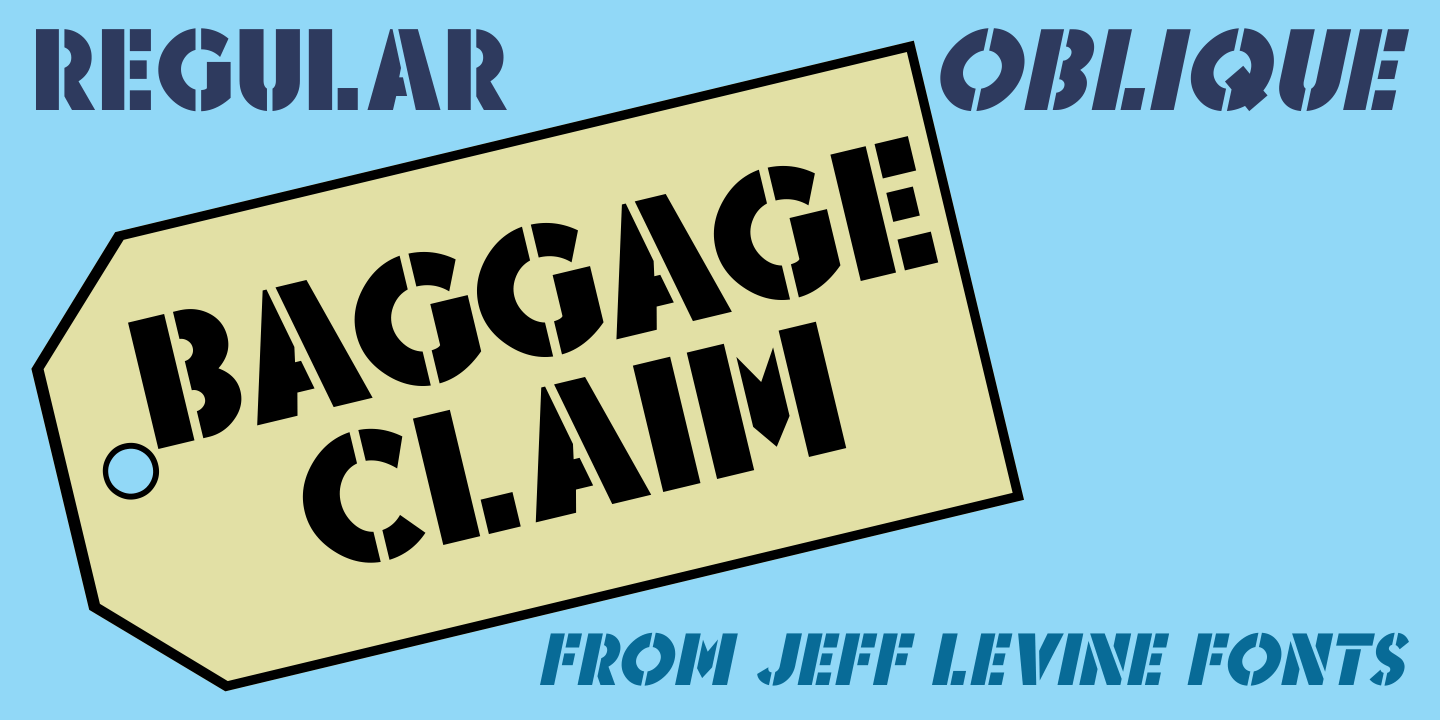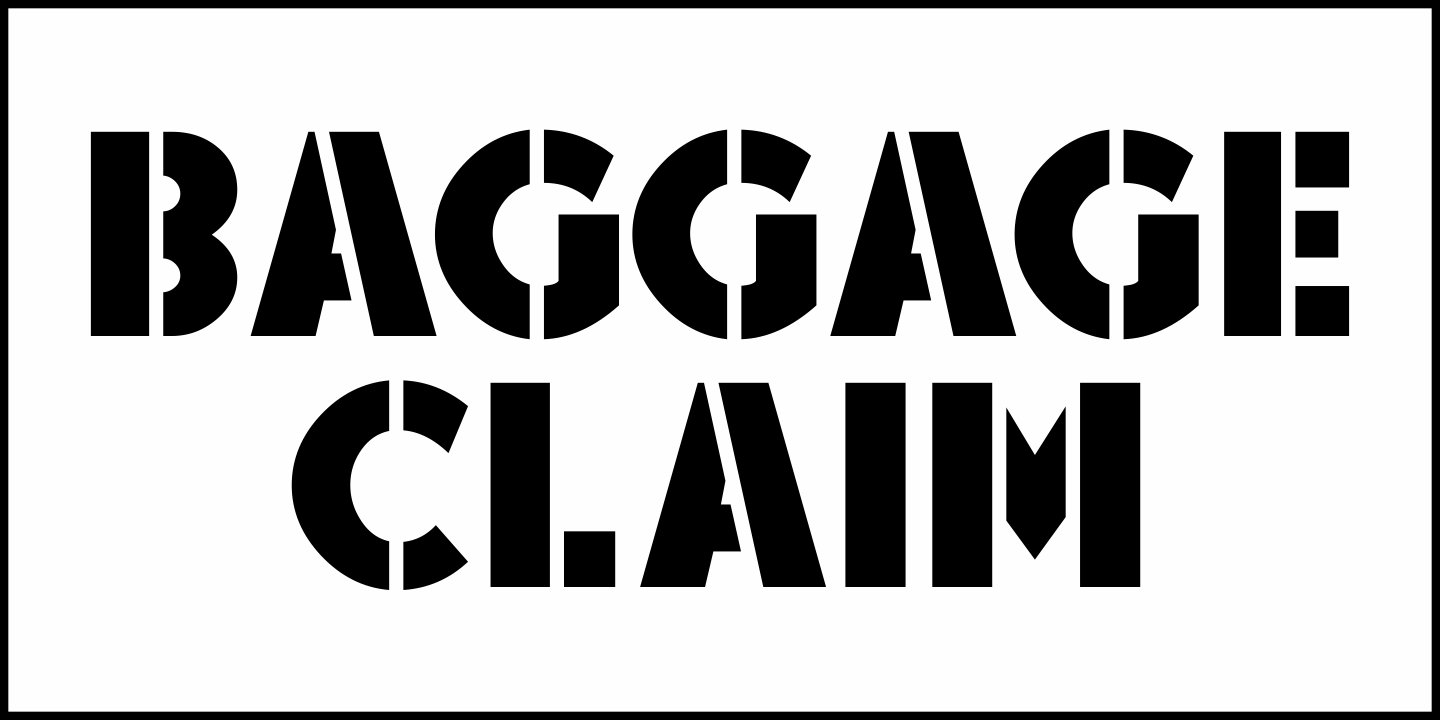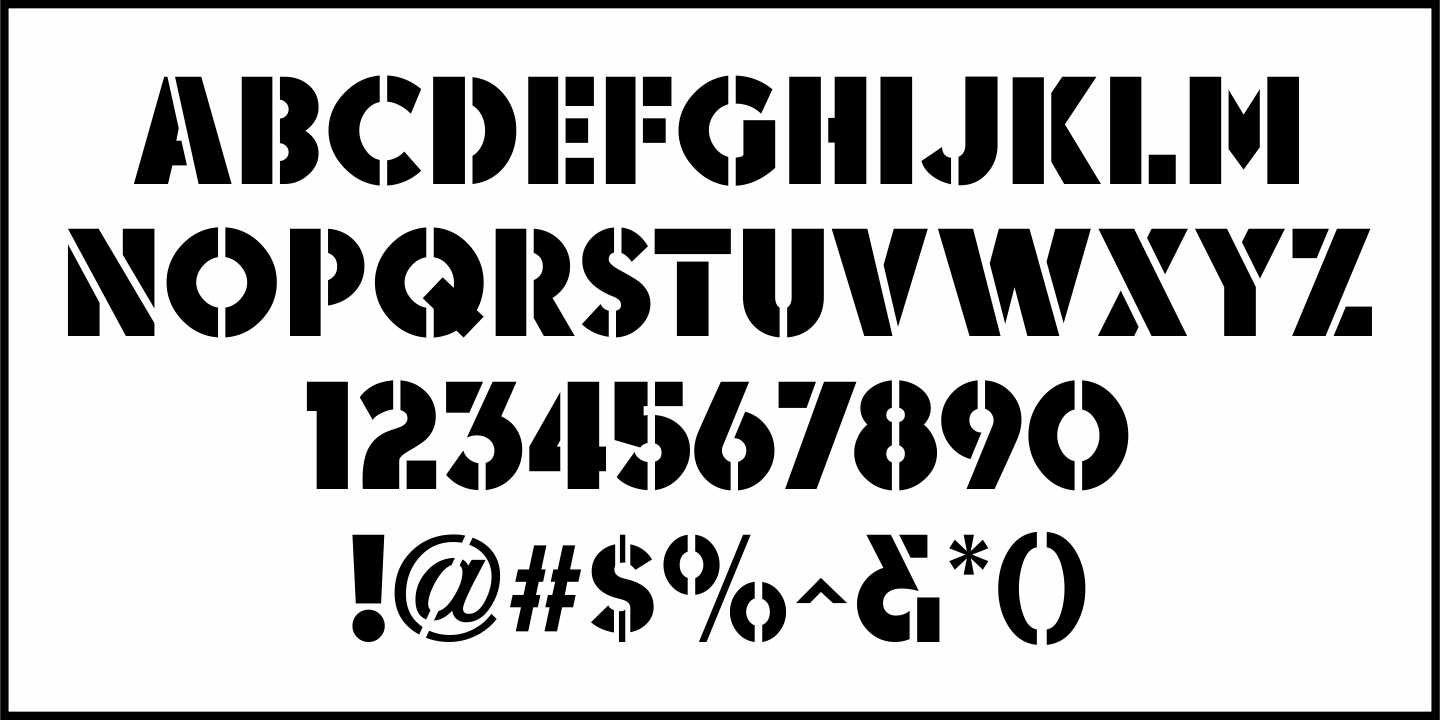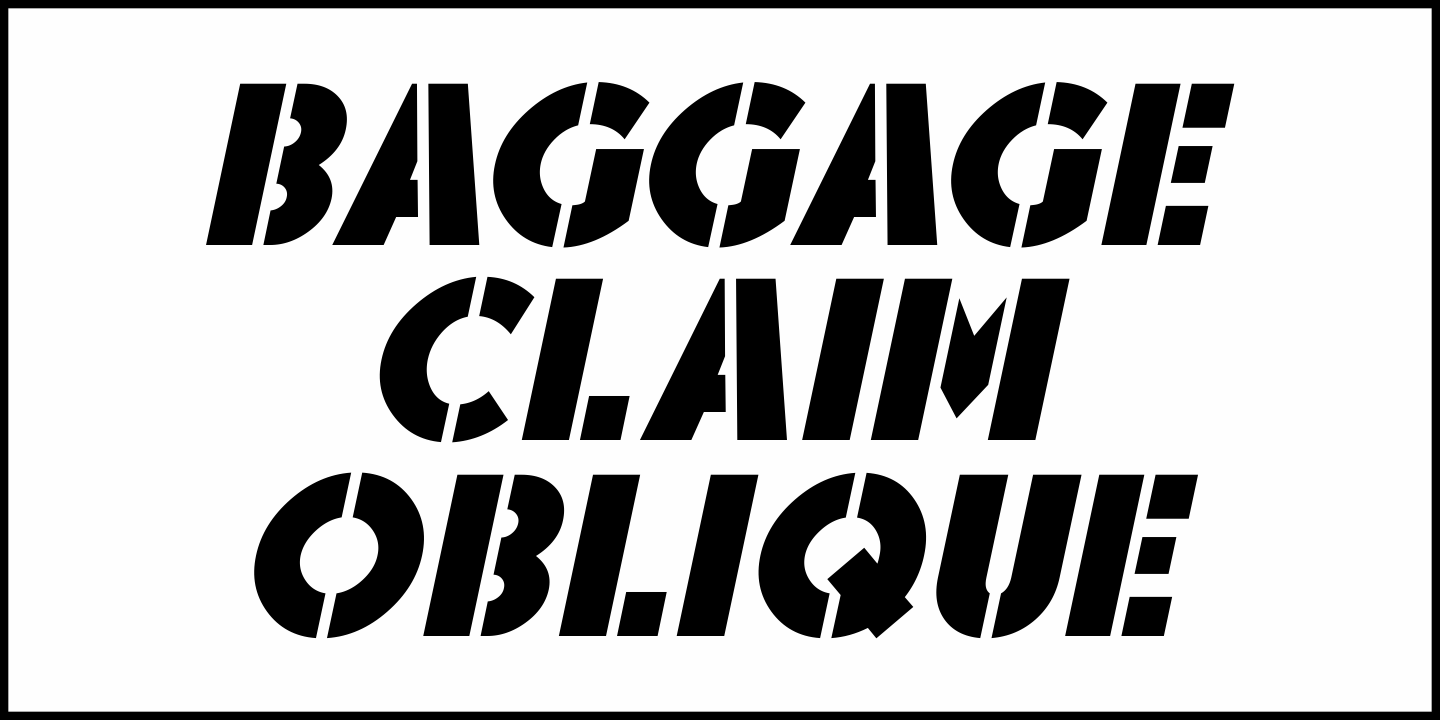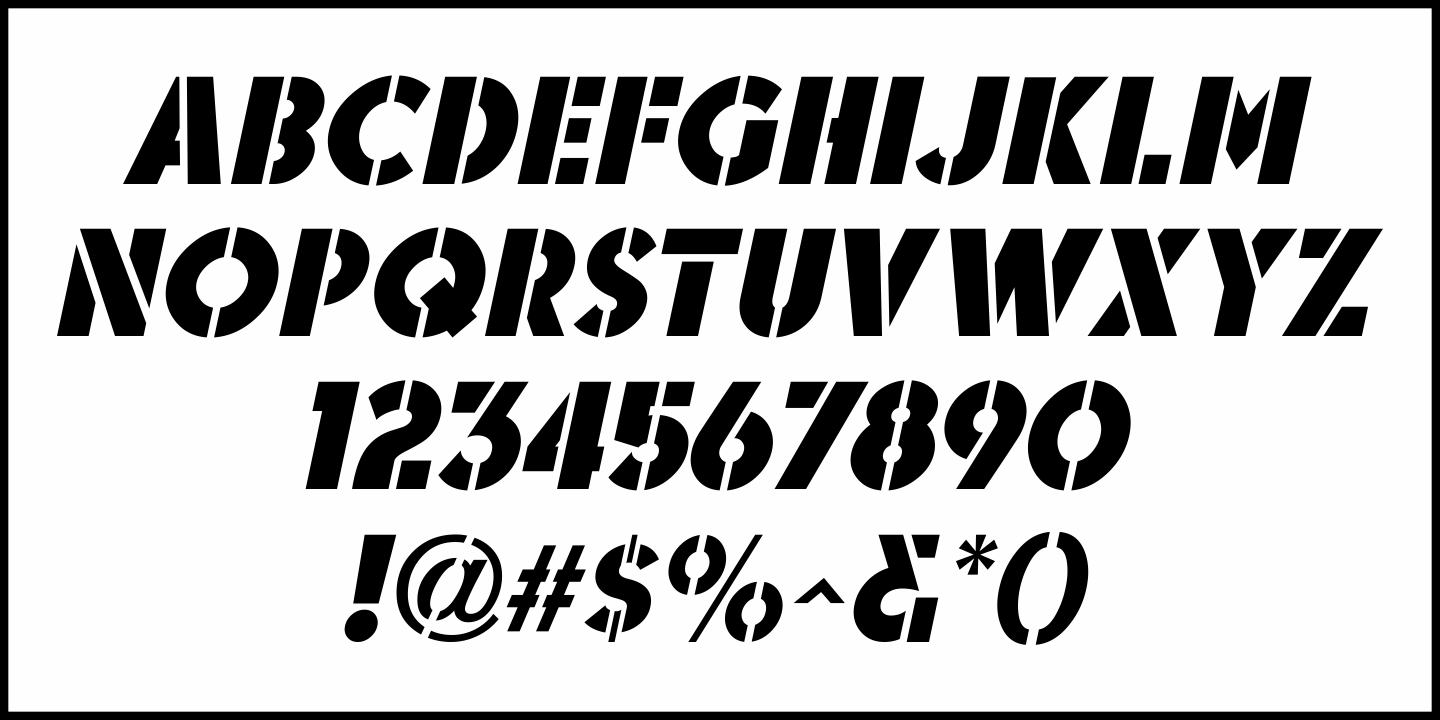
Baggage Claim
Sometimes type designs are set aside as one project takes priority over another and occasionally it becomes overlooked. One such example is a set of extra bold, sans serif stencil characters drawn out in 2017.
Regrettably, as much time has passed, no backstory can be applied to this typeface. It was checked against existing releases in the Jeff Levine Fonts library and didn’t seem to have been re-worked for any subsequent release.
With this in mind, Baggage Claim JNL makes its belated appearance and is available in both regular and oblique versions.